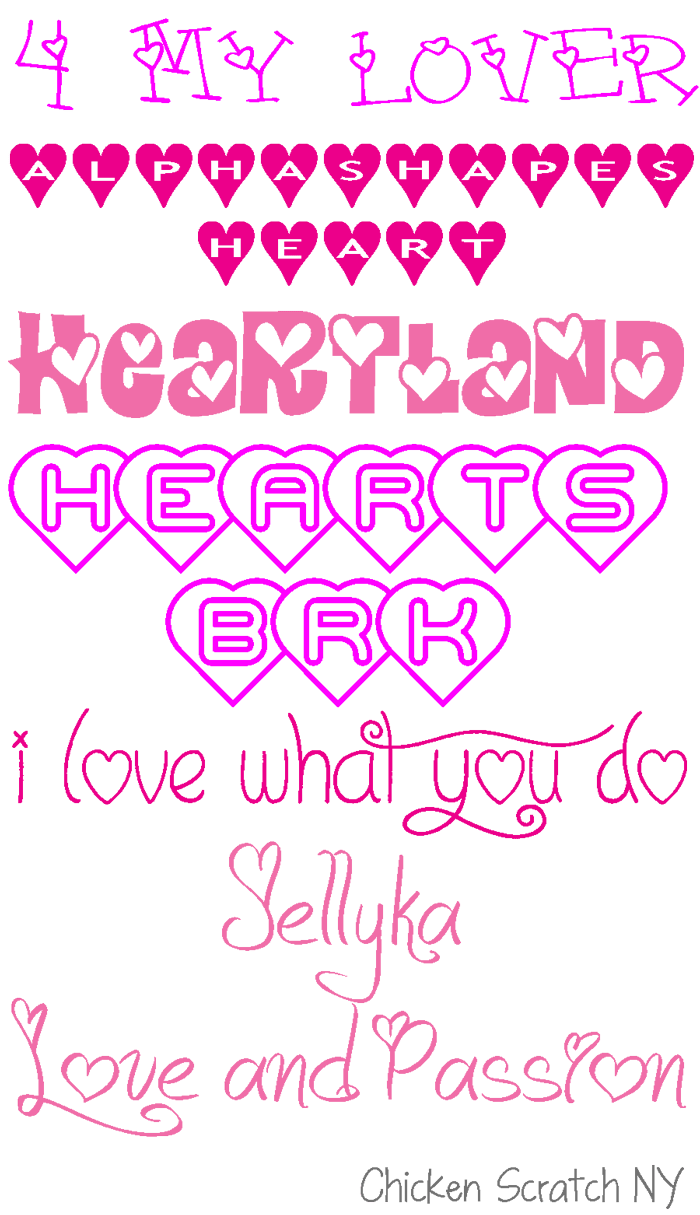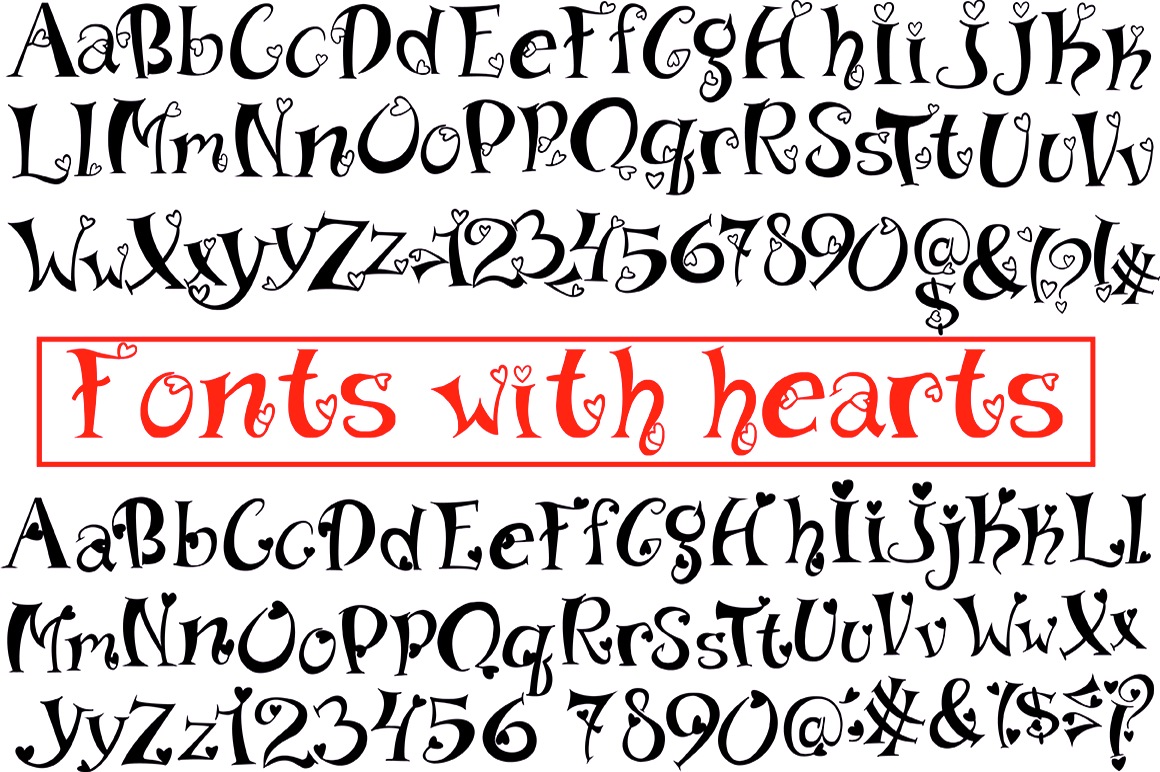
Fonts With Hearts Over I
Fonts With Hearts Over I. The different text fonts are all a part of the unicode standard which means that they're not like normal fonts. We have 98 free heart, cursive fonts to offer for direct downloading · 1001 fonts is your favorite site for free fonts since 2001
This font is a demo version font and does not contain all glyphs, and may only be used for personal use. Cupid hearts is a hand written script, first drawn on paper and then remastered on the computer to give a smooth free flowing script,that looks perfect over the top of photos or as a logo.with 20 alternate style sets this lovely and friendly typeface take the stress out of finding fonts that match together so you can focus on what you want to. Most heart symbol are emoji, though, including big black heart 🖤, so you'll be able to type them using a default emoji keyboard.
Cupid Hearts Is A Hand Written Script, First Drawn On Paper And Then Remastered On The Computer To Give A Smooth Free Flowing Script,That Looks Perfect Over The Top Of Photos Or As A Logo.with 20 Alternate Style Sets This Lovely And Friendly Typeface Take The Stress Out Of Finding Fonts That Match Together So You Can Focus On What You Want To.
Inspired by the handwriting of our teenage years, this font features little hearts sprinkled in some characters. The font used in the show is the enfantine group, specifically enfantine web bold. A production which developed over time into a mass cult and has to answer probably the biggest share of the distribution of the symbol.
If you don't see a heart in the previews, it might be another character or style in the font family. Looking for cursive heart fonts? Find also more different free new fonts style for whatsapp, instagram, facebook, free fire, pubg, and more.